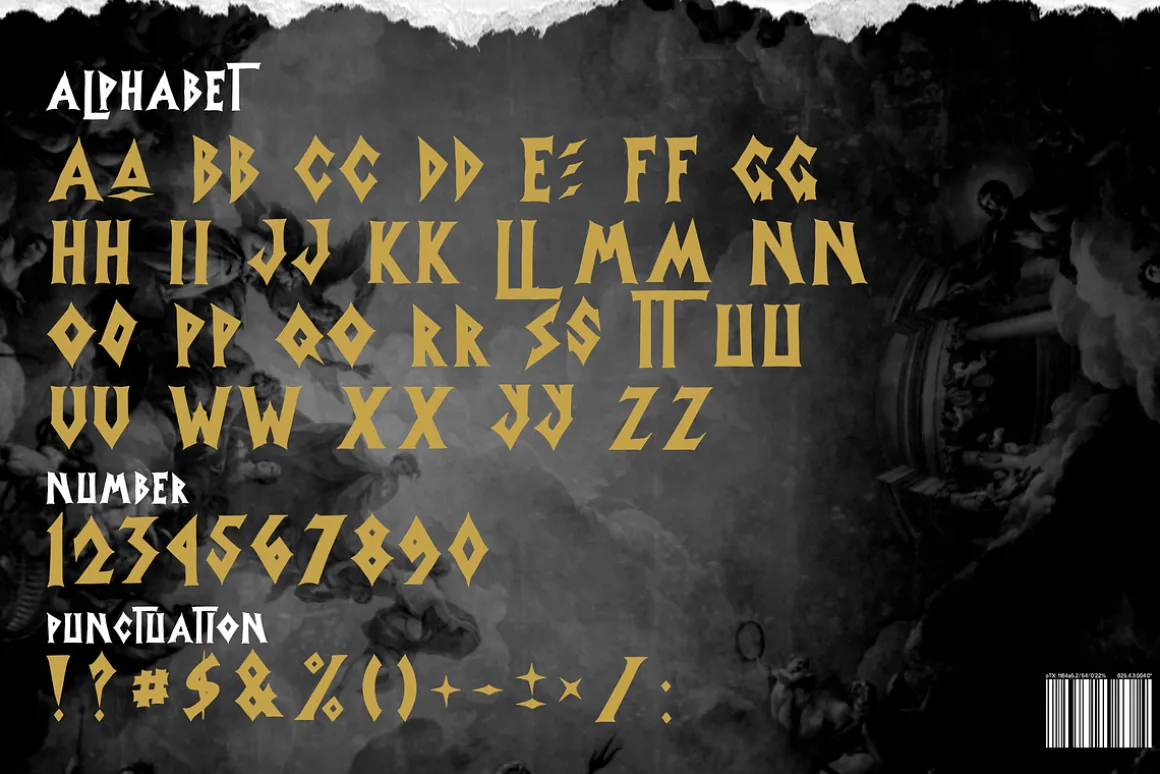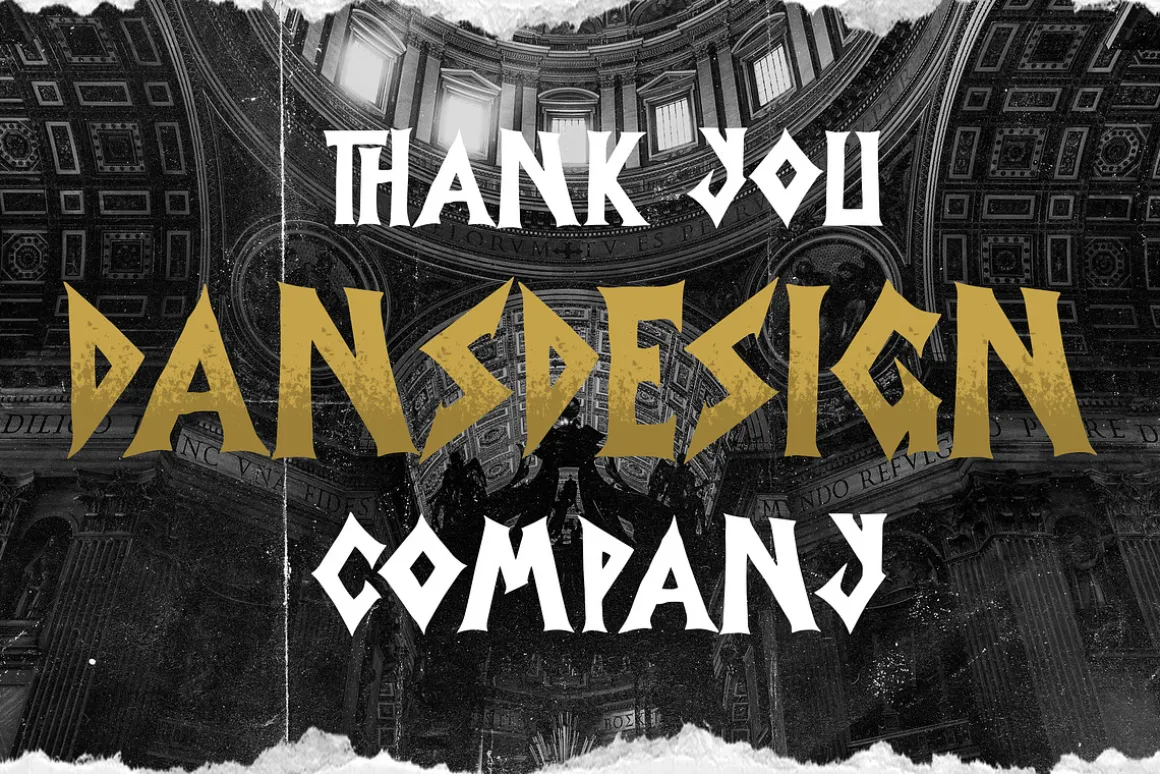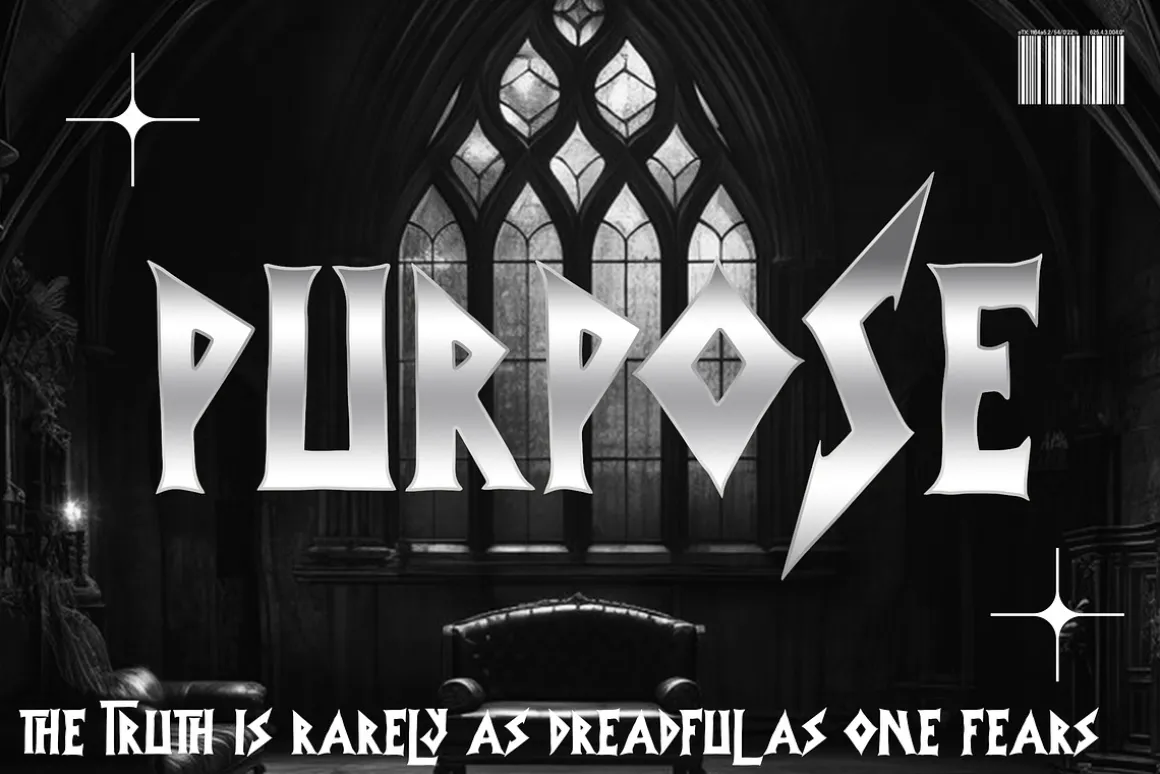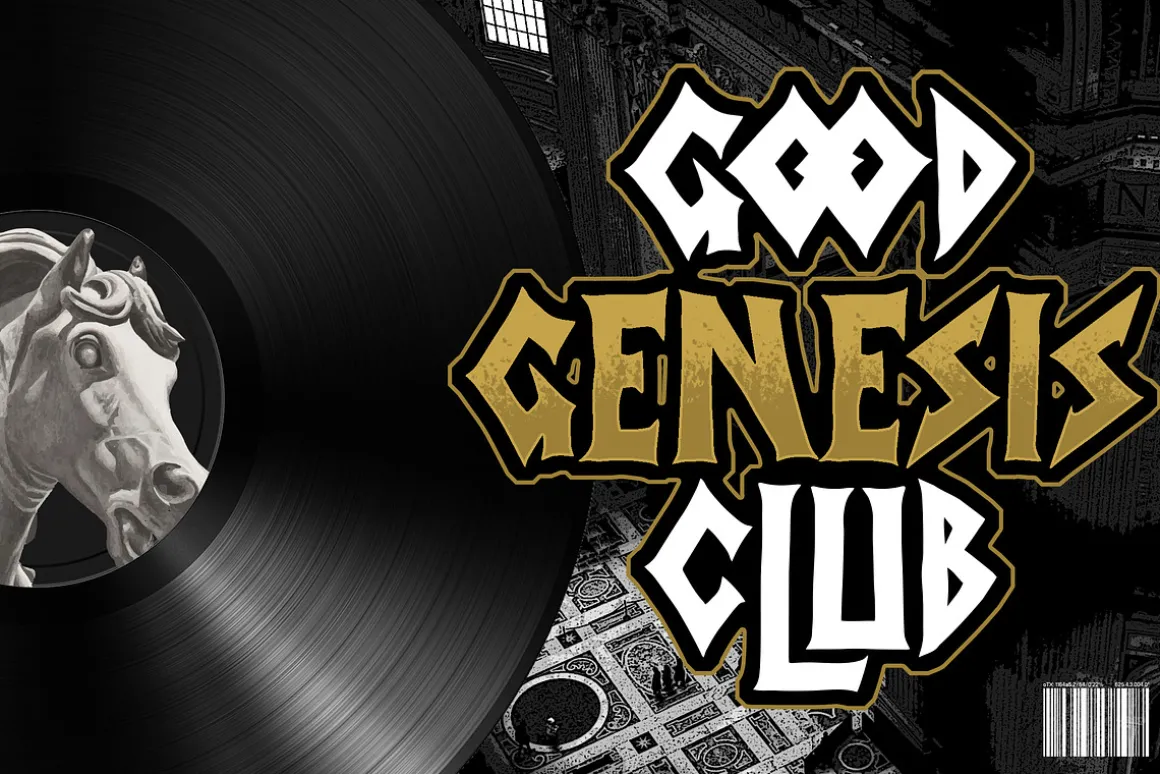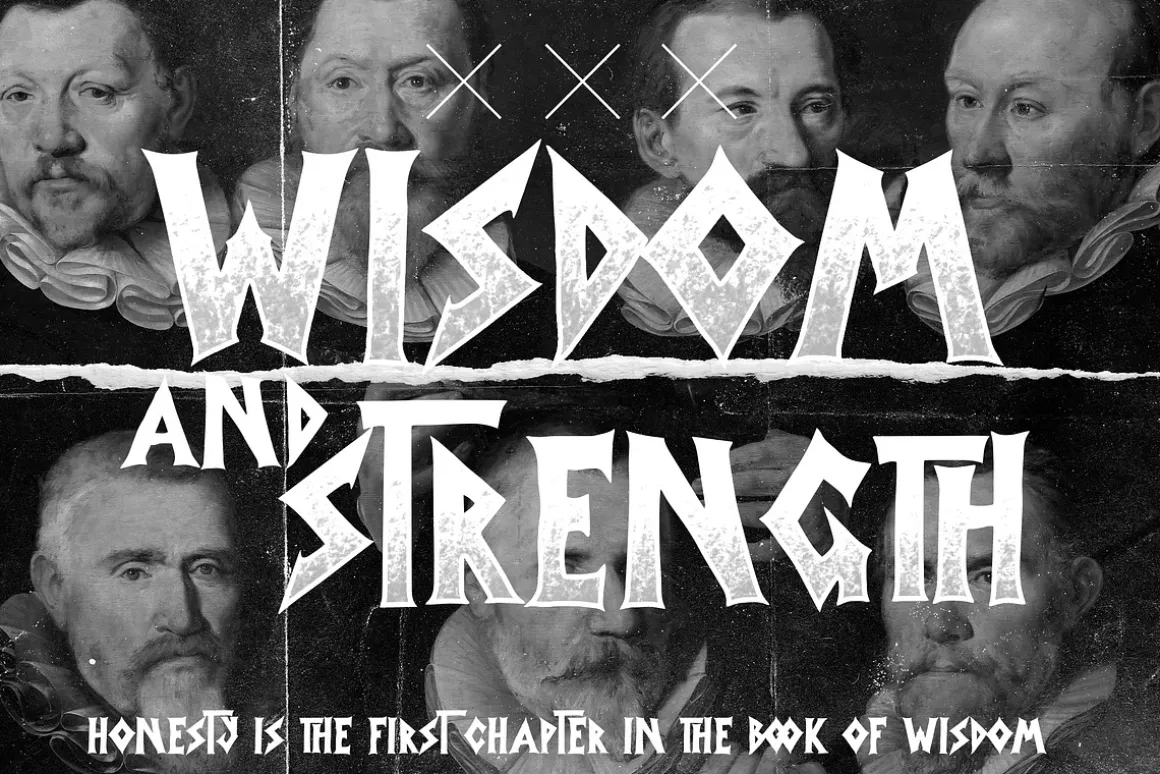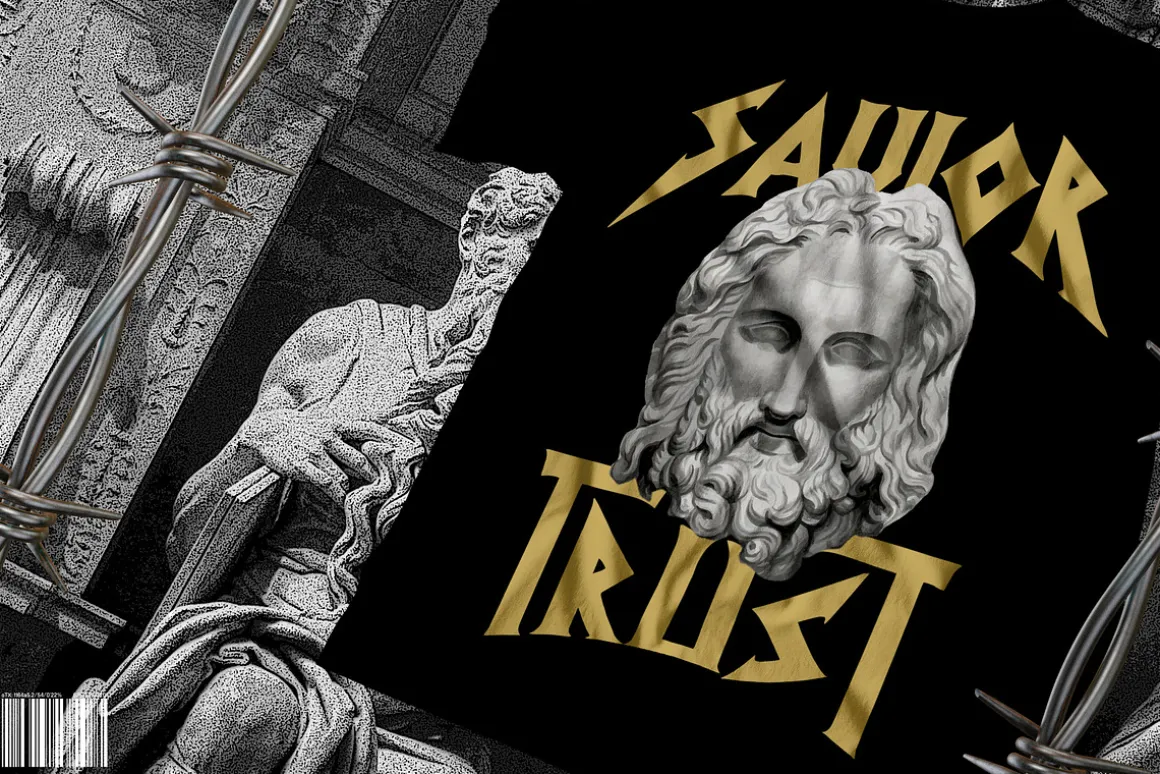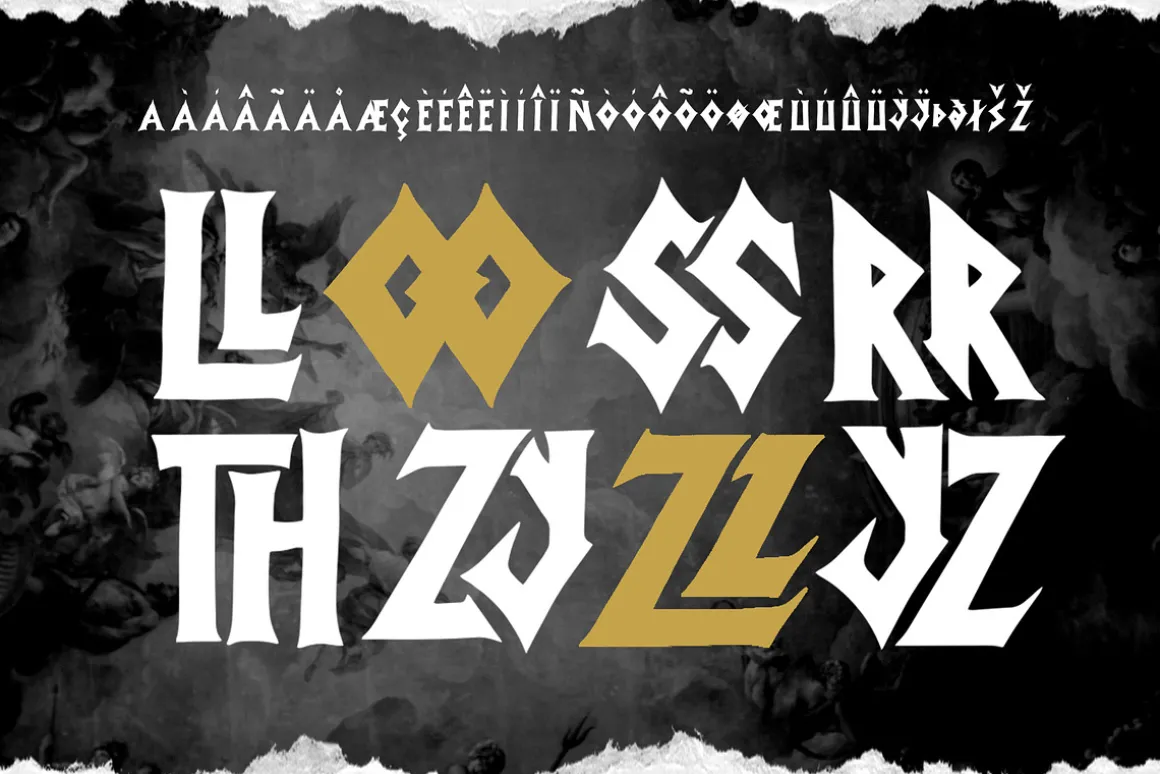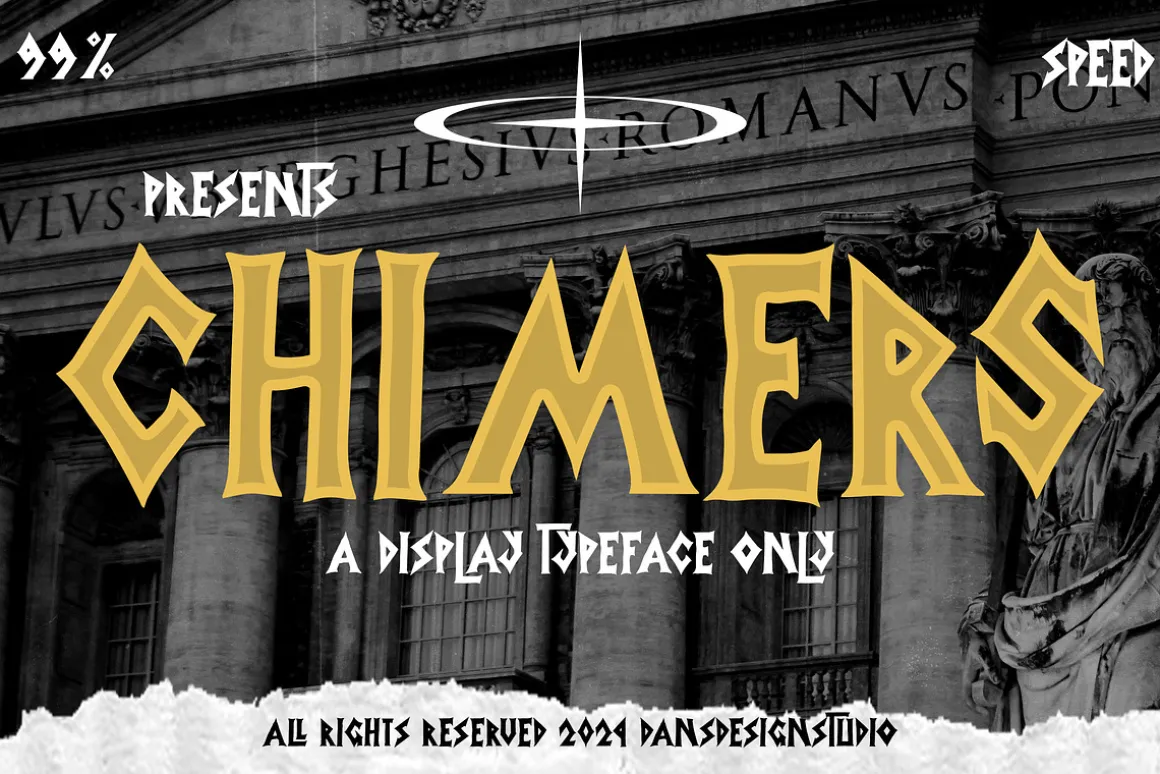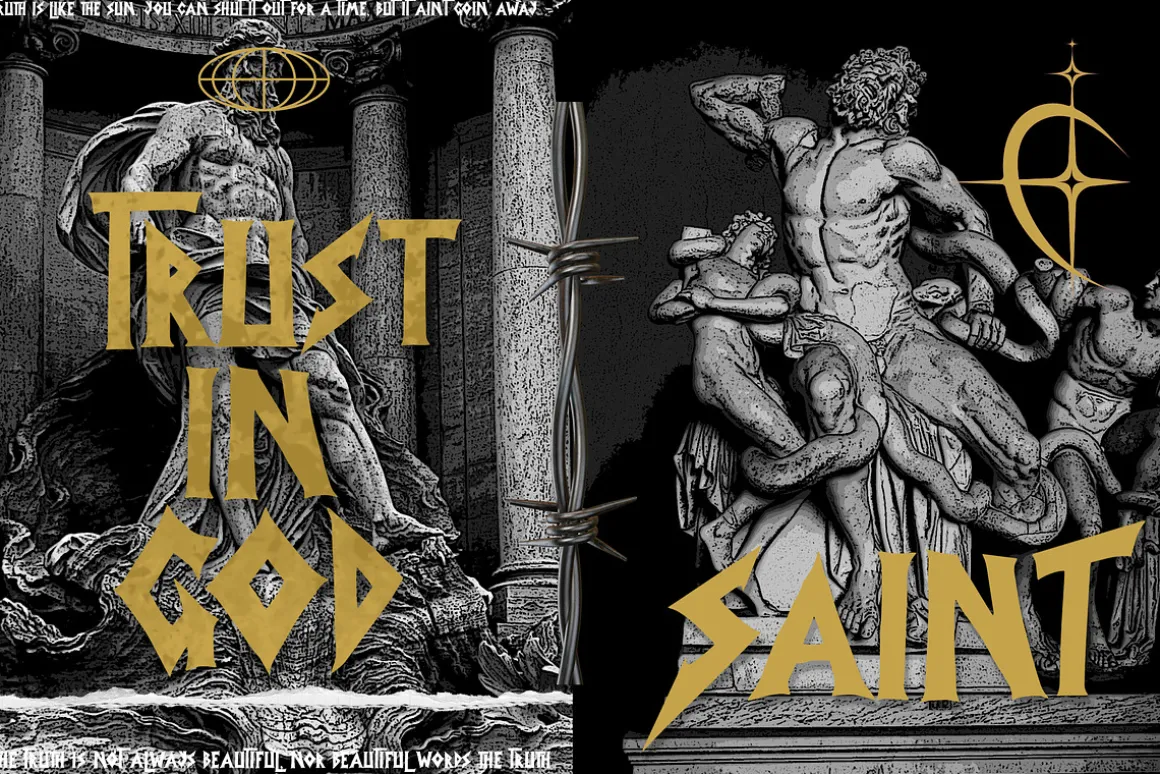
ChimersGraffiti Y2k Display Font
ChimersGraffiti Y2k Display Font a distinct, highly detailed. Marker Display Font.It would make a great choice for exquisite retro-urban designs, business branding, logos, Apparel designs, and more.